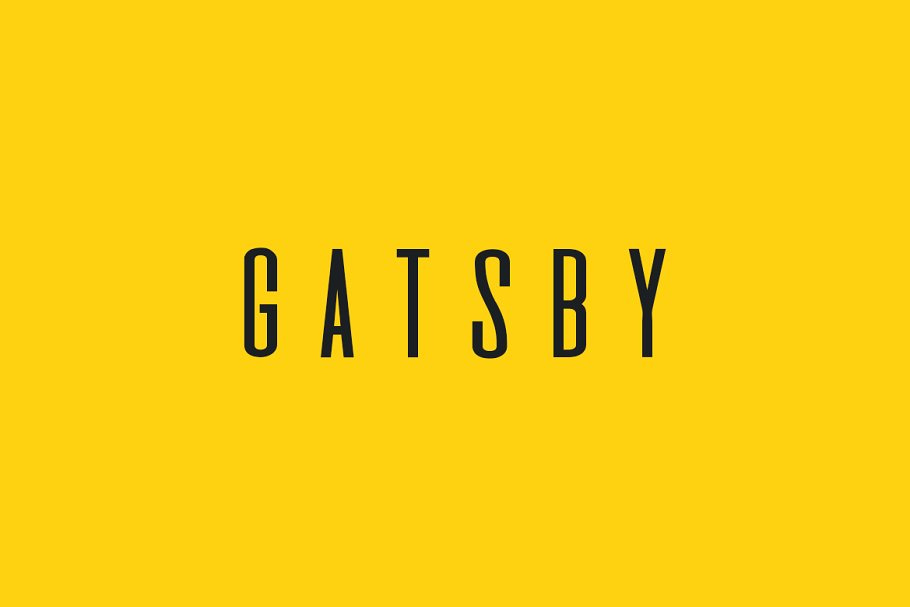
Gatsby Font
Gatsby Font is perfect for luxury Art Deco events, vintage 1920s themed venues, upscale speakeasy branding, elegant jazz club identity, sophisticated wedding invitations, and glamorous party planning materials. Its opulent character makes it ideal for luxury hotels with historic charm, premium cocktail lounges, vintage fashion boutiques, exclusive social clubs, high-end entertainment venues, and any project requiring Jazz Age elegance with Roaring Twenties sophistication and timeless glamour.
This font is exciting because it captures the intoxicating glamour and sophisticated excess of the Jazz Age while delivering contemporary functionality for modern luxury communications. The exquisitely crafted letterforms evoke images of champagne toasts, glittering parties, and the golden era of American prosperity, creating powerful emotional connections that resonate with audiences seeking authentic luxury experiences and the timeless appeal of classic American elegance.
The Gatsby Font family typically includes Regular, Bold, and ornamental variations with Art Deco flourishes, Jazz Age-inspired decorative elements, and 1920s luxury ornaments that enhance its glamorous personality. This comprehensive collection enables designers to create prestigious brand systems that maintain period authenticity while providing creative flexibility for various luxury applications and vintage-inspired market positioning strategies.